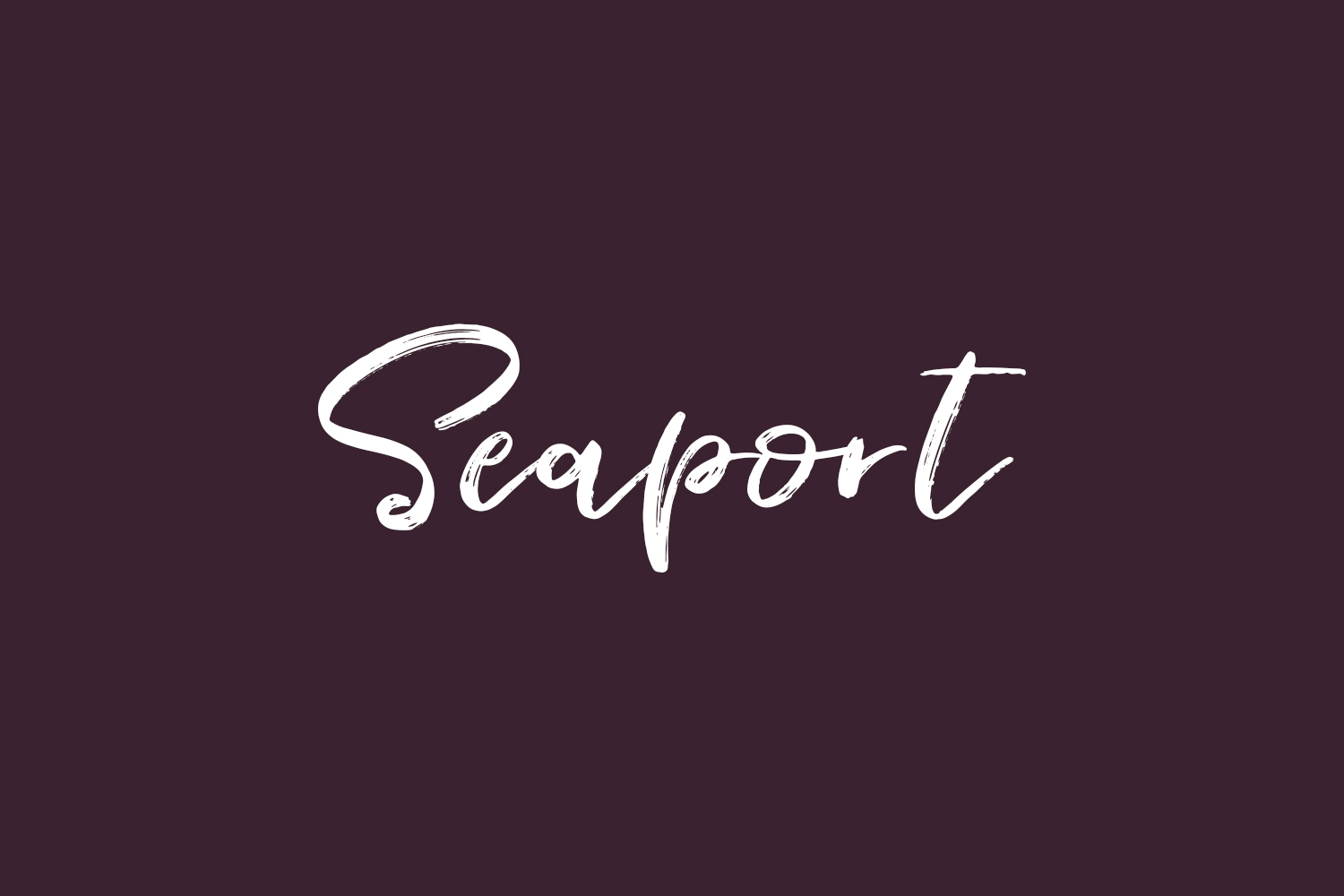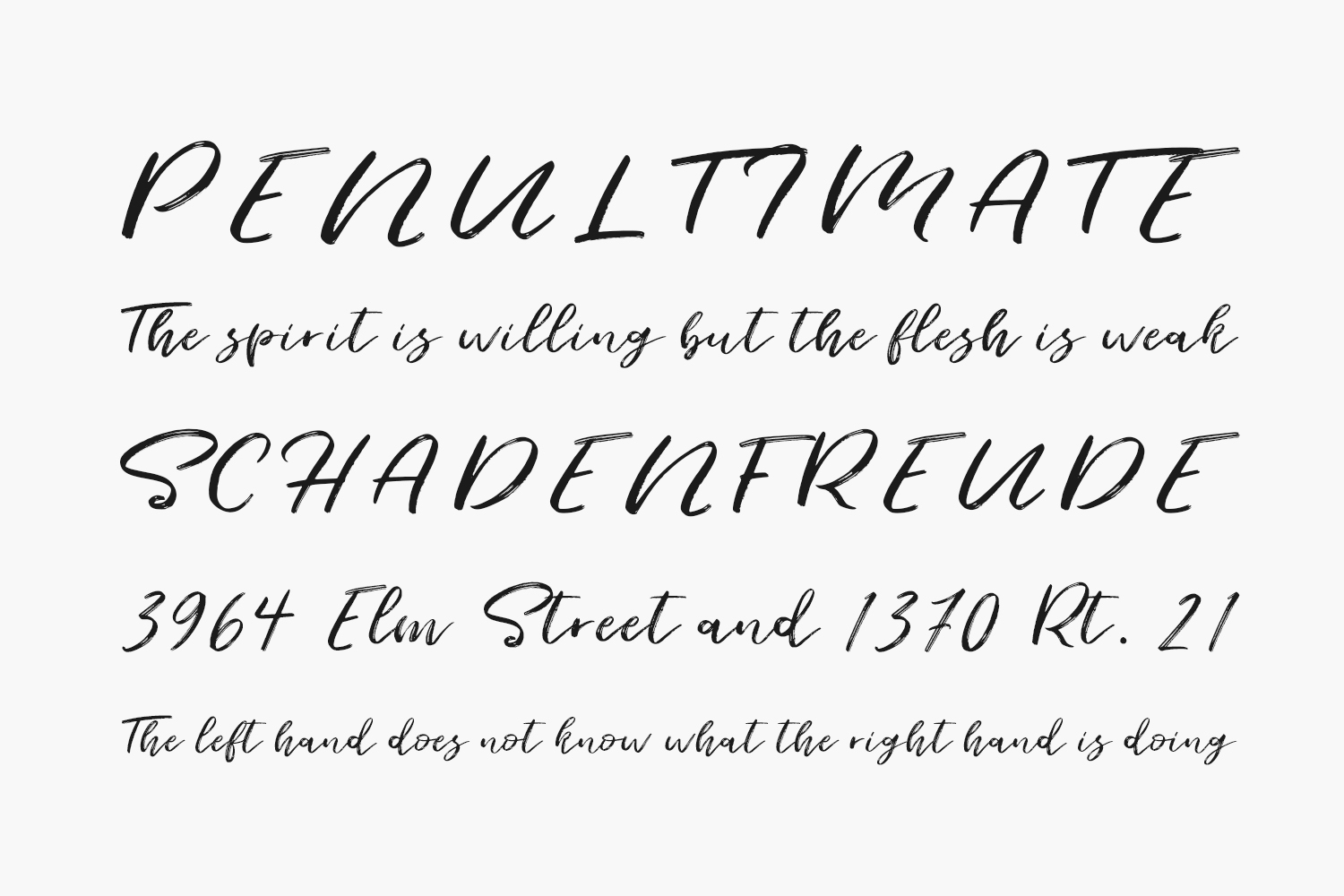
Seaport Free Font has interesting brush-drawn characters which are providing funs and uniqueness to designs and texts at the same time and it looks like the 1960s and 70s fashions and sport-related typefaces such as Bromello font. After the font was released, it has got tremendous success among designers as well as famous Corporations and companies. This aesthetic typeface has 2 styles that are regular and alternate which is having up to 1000 standard glyphs, stylish ligatures, swashes, ascenders, descenders, supercool swashes, and glimpse, to make a top-notch typeface for any type of brand and product. Seaport Free Font comes in two OpenType and TrueType formats, supporting immense languages including all Western and Eastern characters. Seaport Free Font was designed by Fontforestry and is free for personal or commercial use.